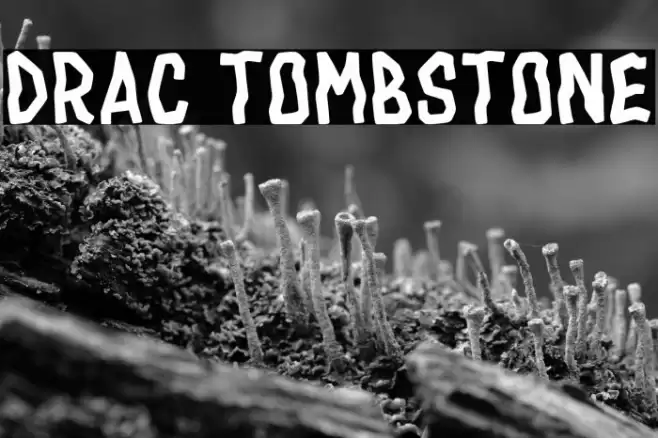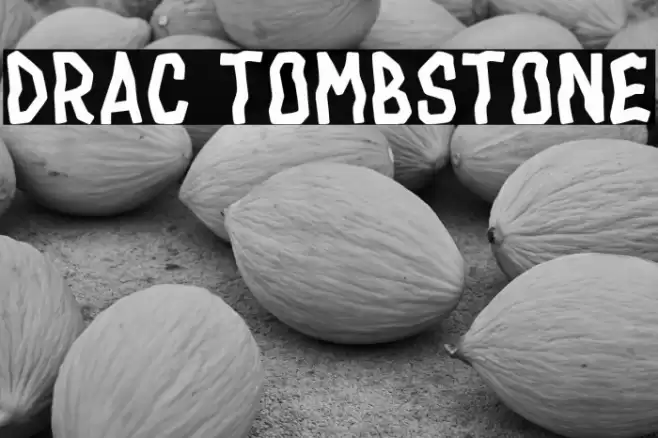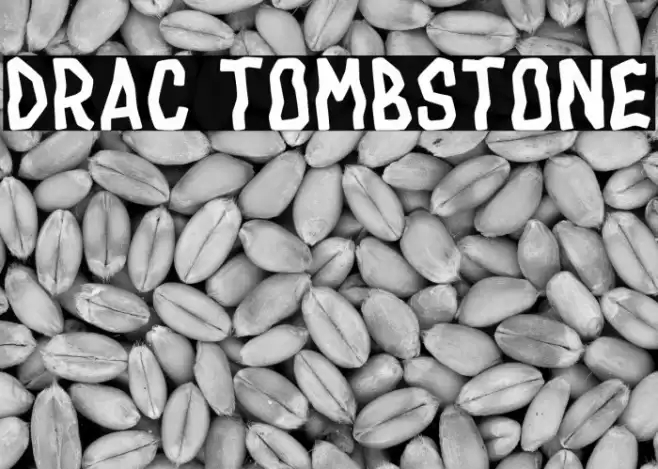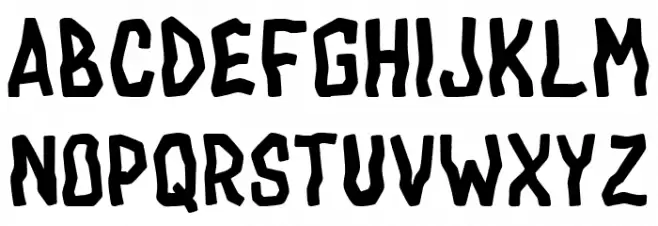
Drac Tombstone Font
Drac Tombstone Description
This font features a bold and rugged design, reminiscent of hand-carved lettering on ancient tombstones. The characters have a rough, uneven edge that gives them a distinctly eerie and gothic appearance. The uppercase letters are particularly striking, with their jagged lines and irregular shapes, creating a sense of movement and energy. The font's unique style makes it perfect for projects that require a spooky or mysterious vibe, such as Halloween-themed designs, horror movie posters, or haunted house invitations. Its boldness ensures that it stands out, while the irregularities in the letterforms add a touch of authenticity and character.
A bold, rugged font with a gothic, hand-carved appearance from Regular fonts.
- Proposed Projects: Ideal for Halloween designs, horror posters, and spooky invitations.
- Overall Style: Gothic, Decorative
- Use Case: Headlines, Posters, Themed Events